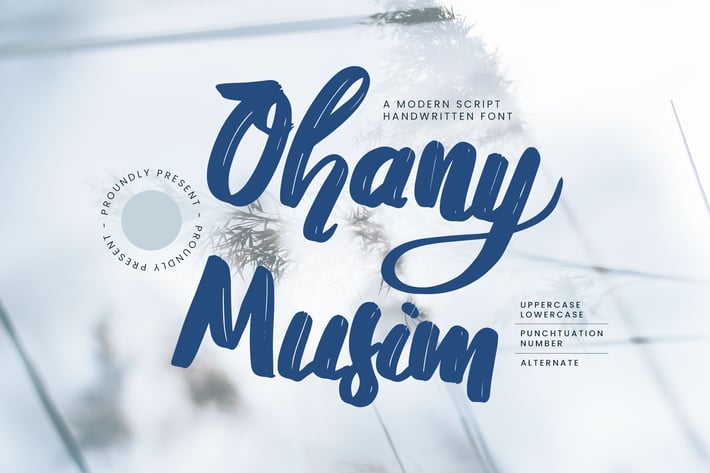
Ohany Musim - Brush Script Handwritten Font
Ohany Musim Font is a font with distinctive handwritten characters perfect for branding projects, logos, wedding designs, media posts, advertisements, product packaging, product designs, labels, photography, watermarks, invitations, stationery, and any project who need handwritten dishes.
Featured:
+ Uppercase
+ Lowercase
+ Punctuation
+ Number
+ Alternate